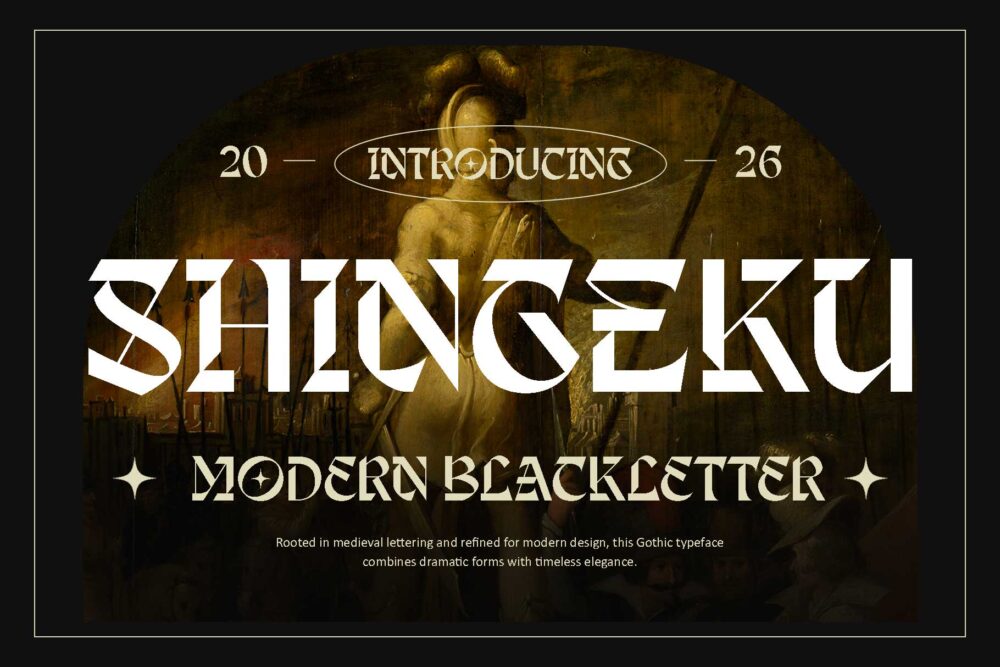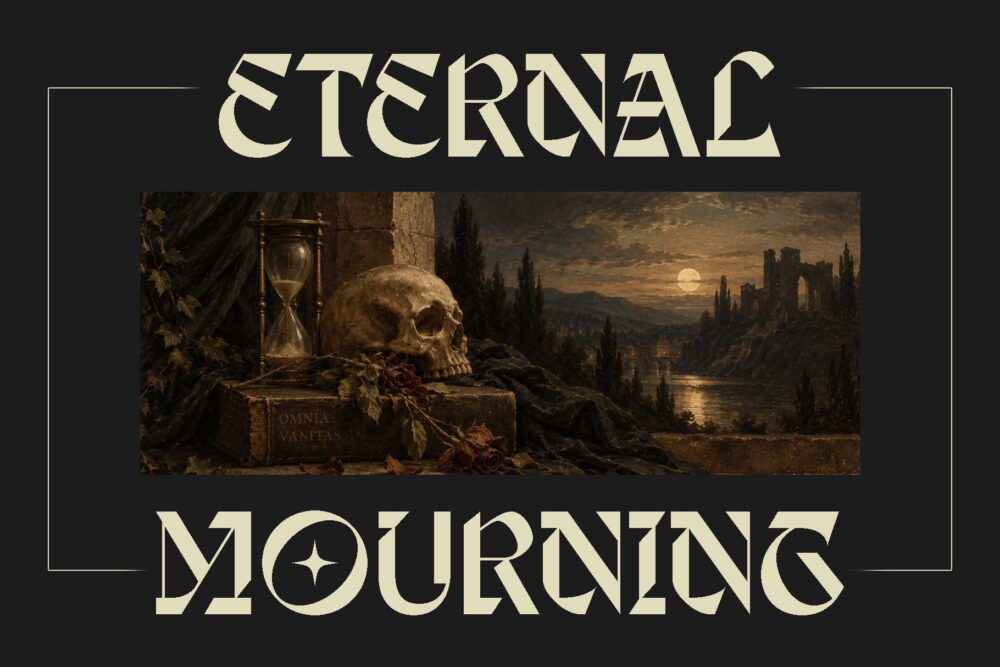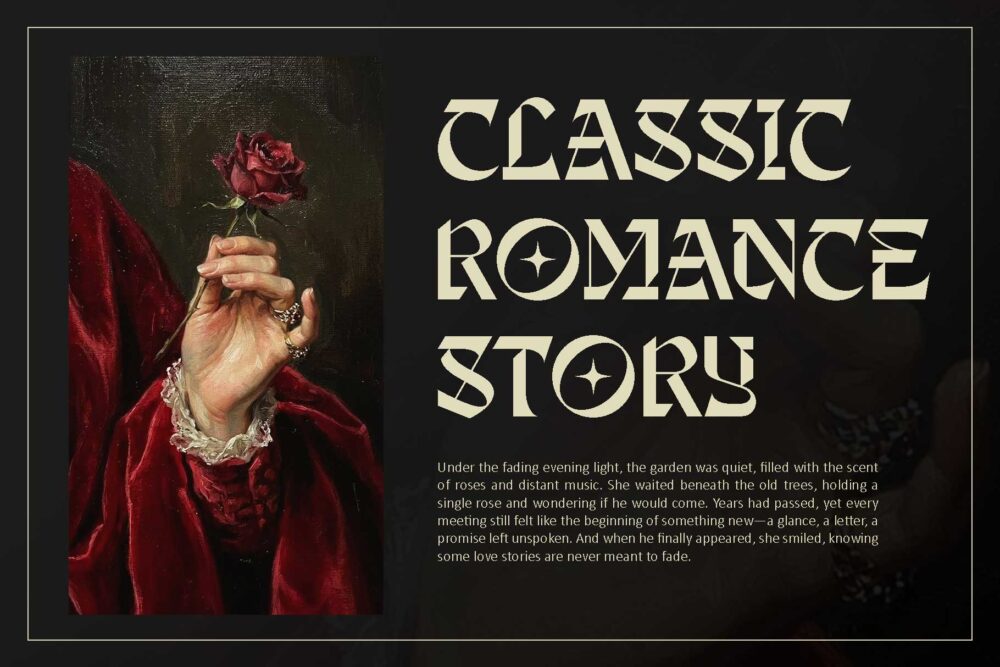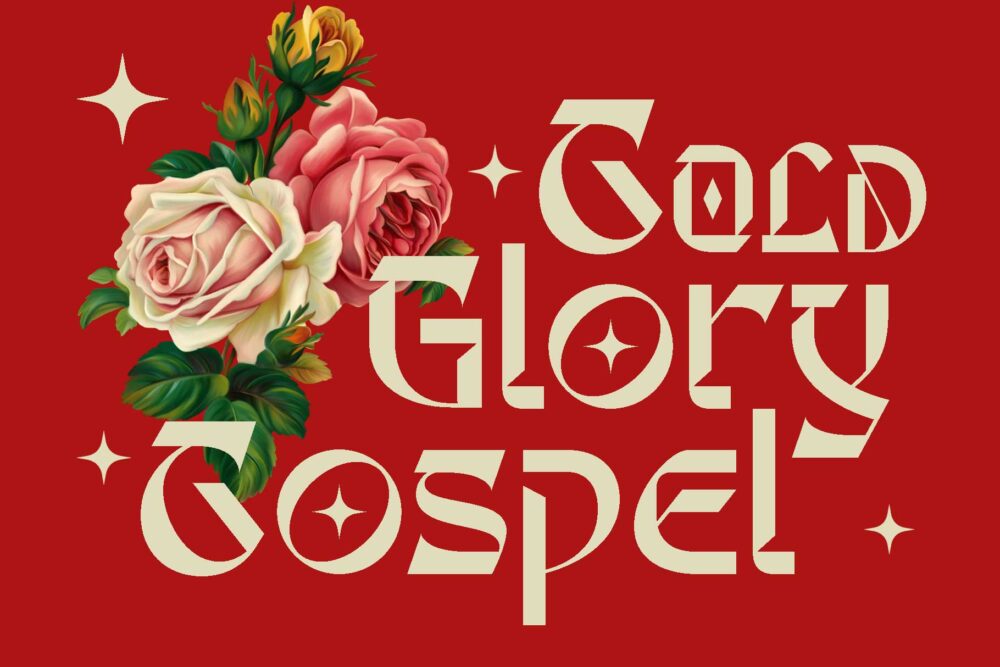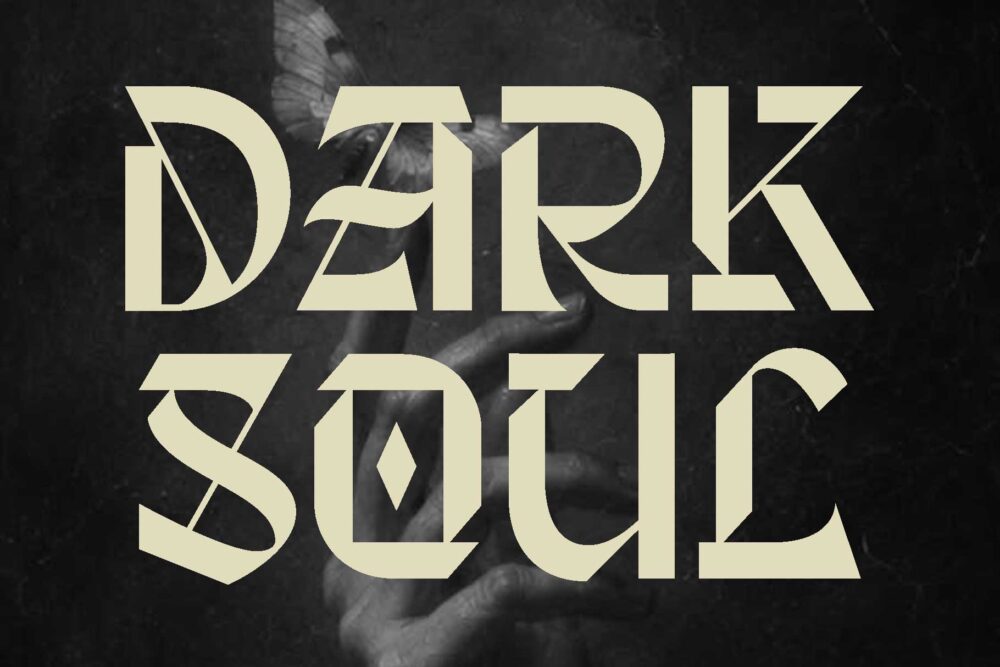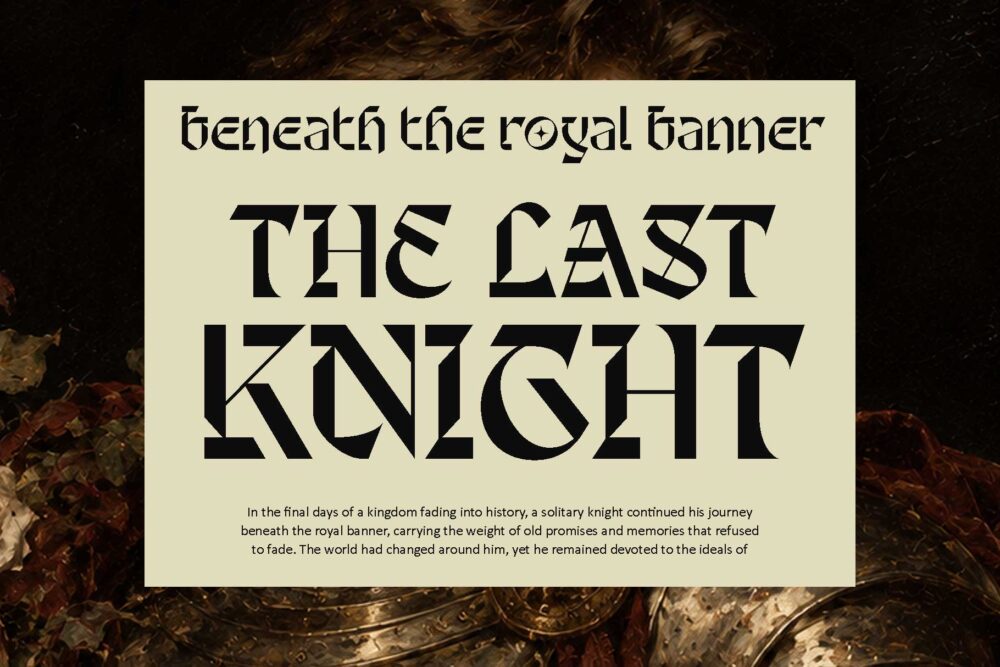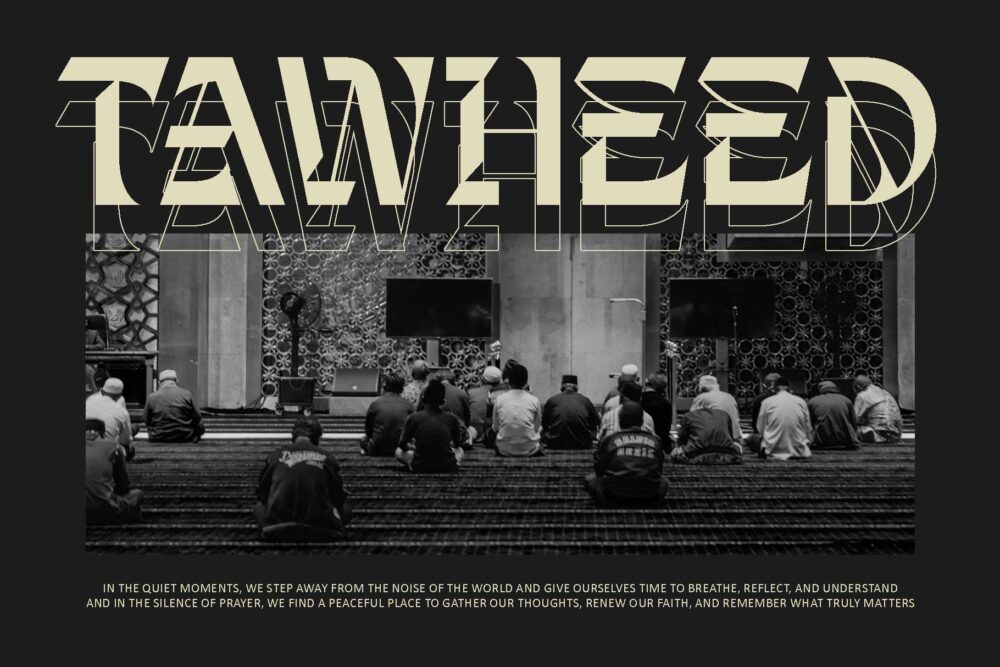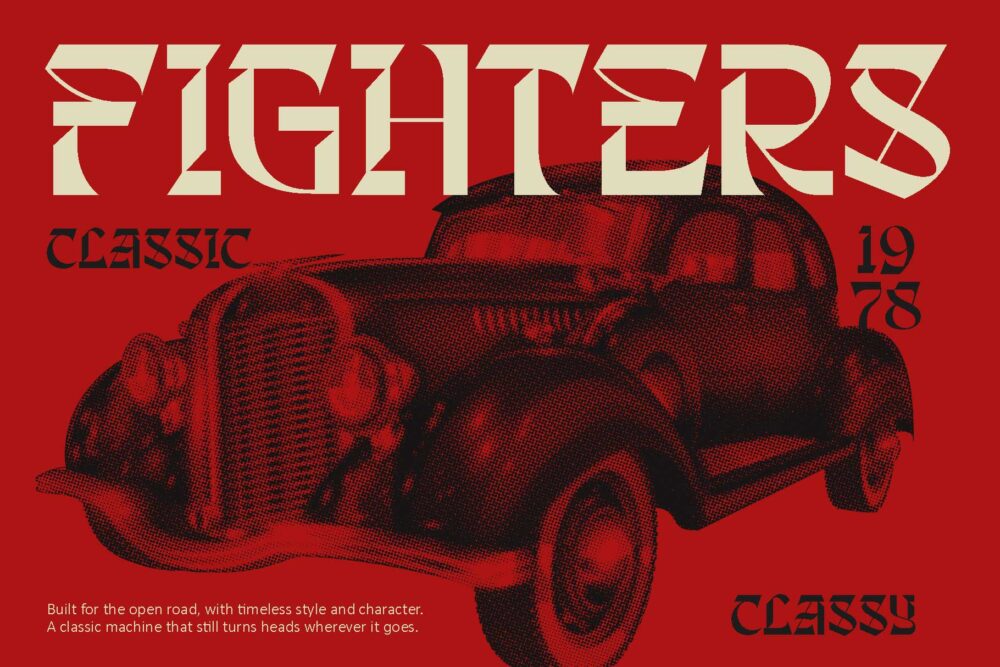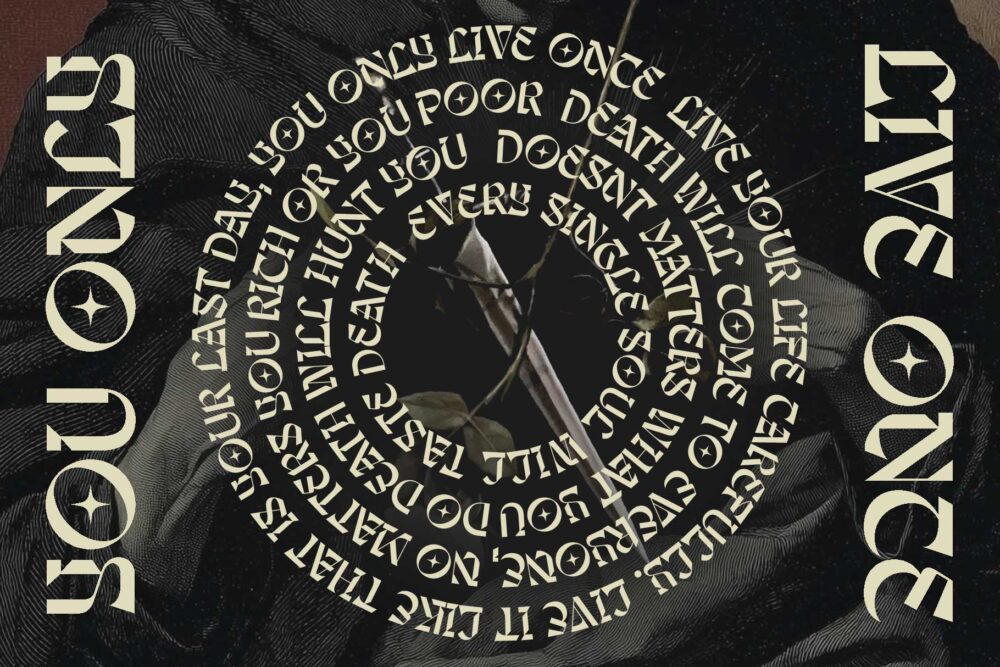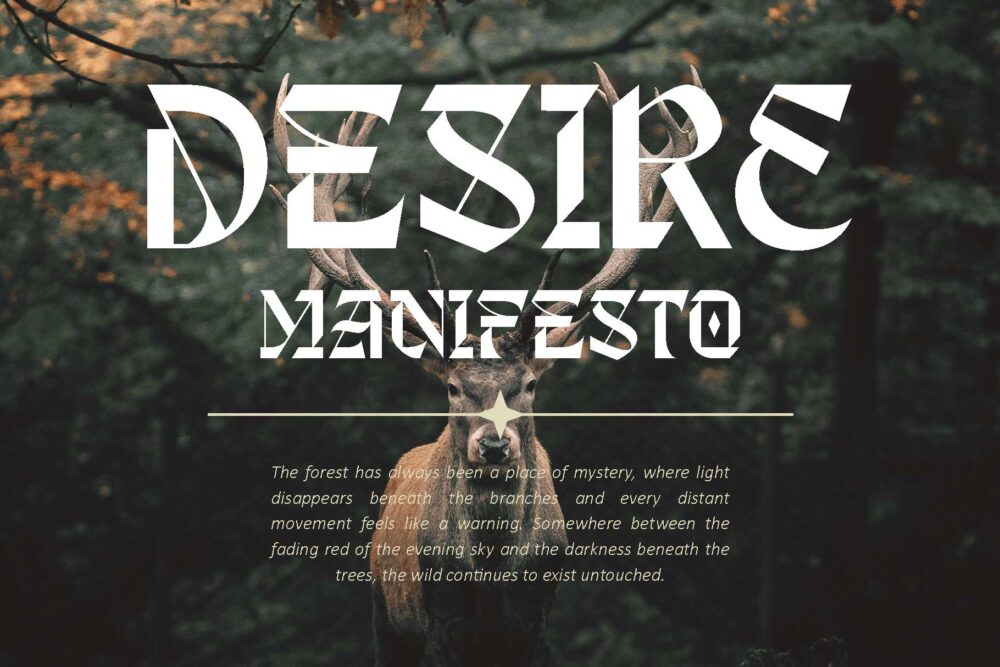
Shingeku modern Gothic blackletter font used in an elegant romantic typography design
Shingeku modern blackletter font used in a dark editorial poster design
Shingeku blackletter font featuring stylistic alternates and unique Gothic letterforms
Shingeku blackletter display font showcased with classic Gothic typography
Shingeku Gothic display font used for modern branding and coffee shop typography
Shingeku
Shingeku is a modern blackletter display typeface that reimagines medieval Gothic lettering with a sharp, geometric edge. Its distinctive cuts, dramatic curves, and unconventional letterforms create a bold visual presence while keeping the overall style refined and contemporary.
Designed for striking typography, Shingeku works beautifully across posters, album covers, fashion branding, packaging, editorial designs, tattoos, and other display-focused projects. Its character can shift from dark and mysterious to elegant and sophisticated depending on how it is styled.
With uppercase and lowercase letters, unique letterforms, and stylistic alternatives, Shingeku gives you plenty of room to create distinctive wordmarks and compositions. Whether you want a medieval atmosphere or a more modern editorial look, Shingeku brings a strong Gothic character with a fresh visual language.
Fonts featured :
– Uppercase
– Lowercase
– Numbers & symbols
– Punctuation
– Stylistic alternates
– Multilingual support